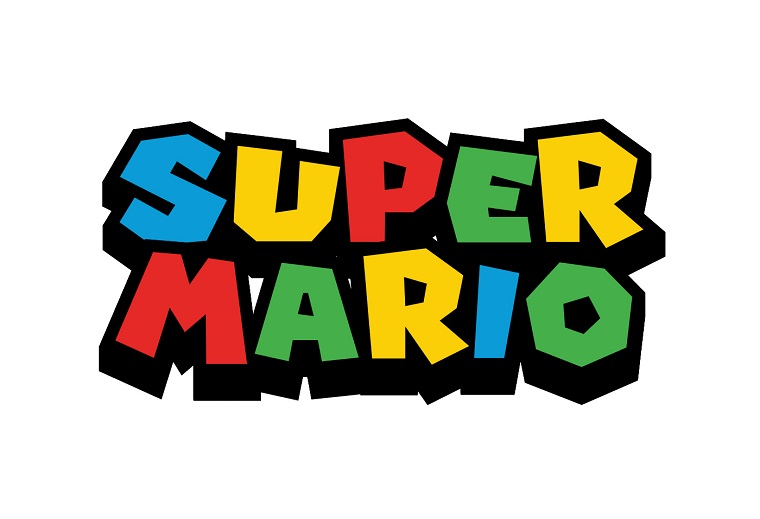
Super Mario Font is a cool way of writing inspired by the Super Mario games. It’s like a costume for letters, making them look like they’re in Mario’s adventures. This font adds game fun to your words, just like Mario’s excitement.
Super Mario Font makes letters jump and play like in the games. It adds fun shapes to letters like they’re skipping in the Mushroom Kingdom. Some letters even wear Mario’s famous hat, looking cool!
The lettering for the Super Mario logo is very similar to a font named Super Mario 256 by fsuarez913. It is a caps-only font with numerals and limited punctuation marks.
Super Mario 256 is the actual font applied to the logo containing much resemblance. Moreover, the letterings of both fonts are identical; that’s why they can be used as similar fonts.
The “Super Mario” font is unique to the games, made with a playful and pixelated style that represents the retro look of the series.